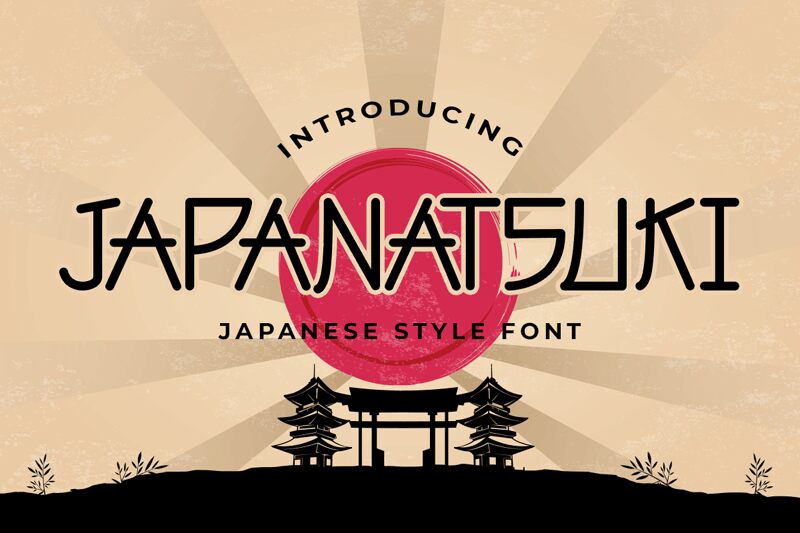
Japanatsuki
Japanatsuki font by Kong Font is a Japanese light font with an exquisite look. Its clean, geometric shapes look sharp and note-worthy when placed over white or black backgrounds. Its unique lettering has been inspired by Japan and its culture – a fact that’s very apparent from the letter details and the overall style of this technical free font.
Use Japanatsuki in magazine covers, book covers, movie posters, marked drink bottles, cosmetics packages, clothing tags, stationery items, accessories packaging boxes… The list goes on!